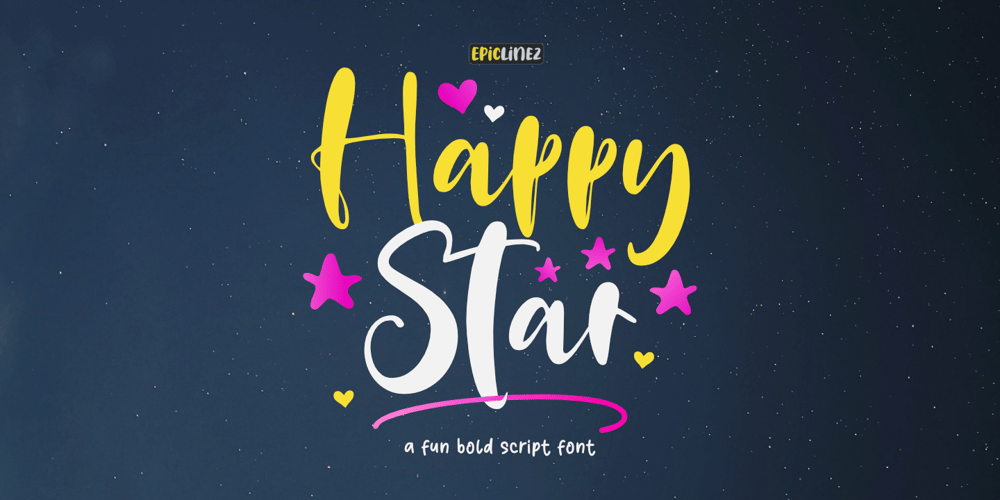
Happy Star Font Family was designed by Aldy Sidik and published by Epiclinez. Happy Star contains 1 styles and family package options. Happy Star is a bold and fun script font. Suitable for logotype and crafting, this font will make each of your designs look gorgeous.Happy Star contains 209 glyphs. Supporting more than 66 languages, from Afrikaans, Albanians to English and Zulu. This font also has open-type features such as ligatures and swashes to create that authentic hand-lettering feel to your designs.Thank You.